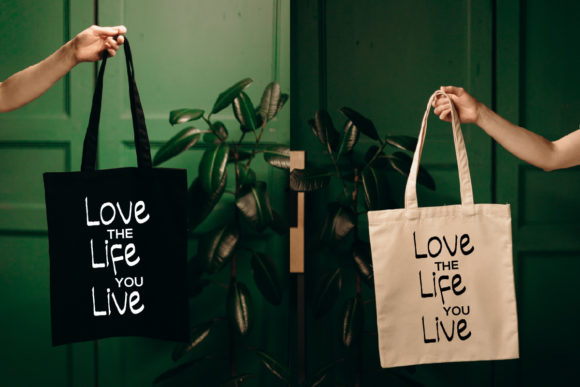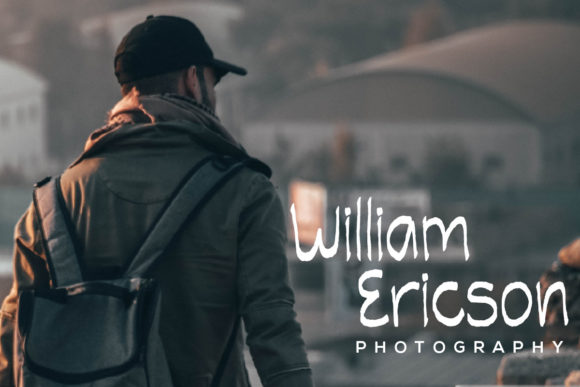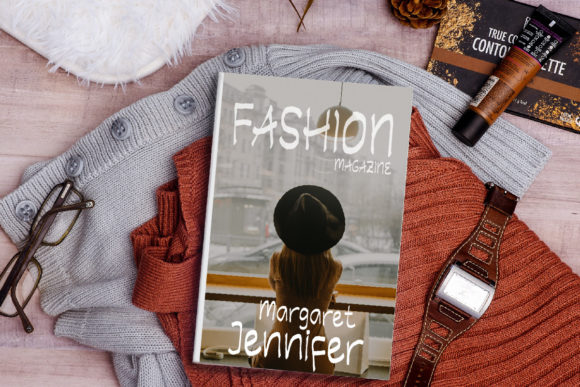
Introduction to Kid Story Font
Kid Story is a clean and simple handwritten font.
Suitable to a wide variety of designs due to its neat and simple style, this font has the potential to become your favorite go-to font, no matter the occasion .
Kid Story Font offers exceptional quality and versatility, making it a valuable addition to your design toolkit. Whether you’re creating for personal projects or commercial use, Kid Story Font delivers professional results.